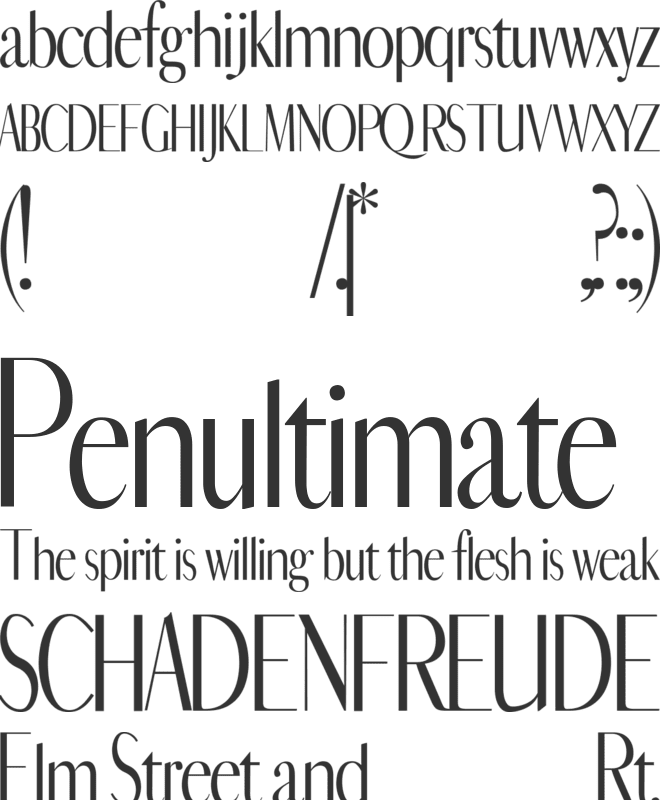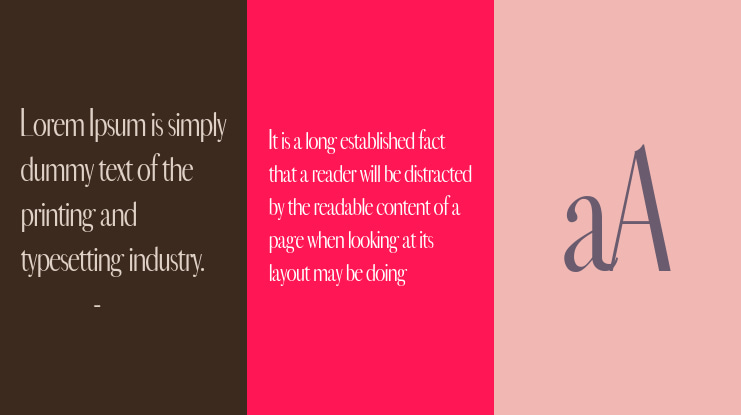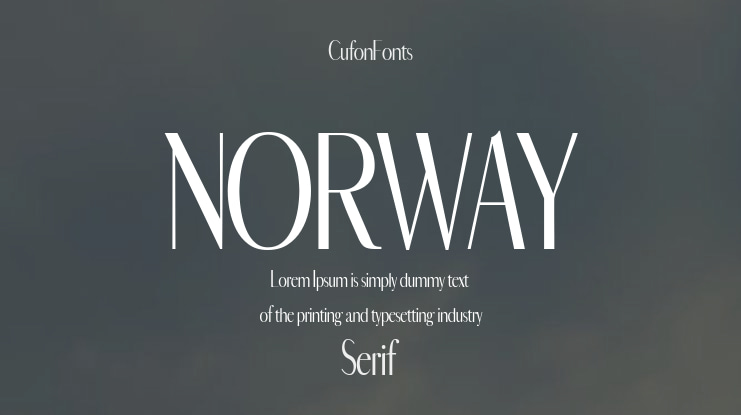
NORWAY Font Family
🎨 Font Name: Norway by Minimalist Art Studio
🎨 Font Description: NORWAY is a delicate sans serif with 500+ glyphs and graceful verticality, ideal for fashion, branding, and editorial clarity.
βœ” Complete Latin set + multilingual diacritics
βœ” Alternates, stylistic sets & ligatures
βœ” Numbers, small caps, and extended punctuation
βœ” Bonus italics and family styles